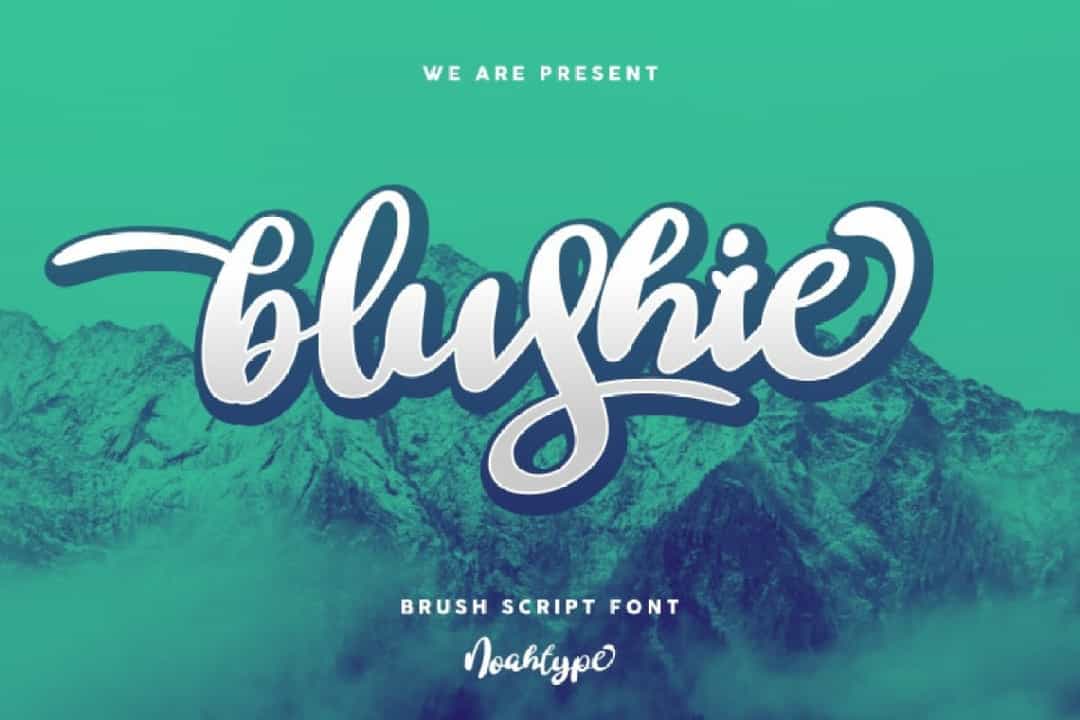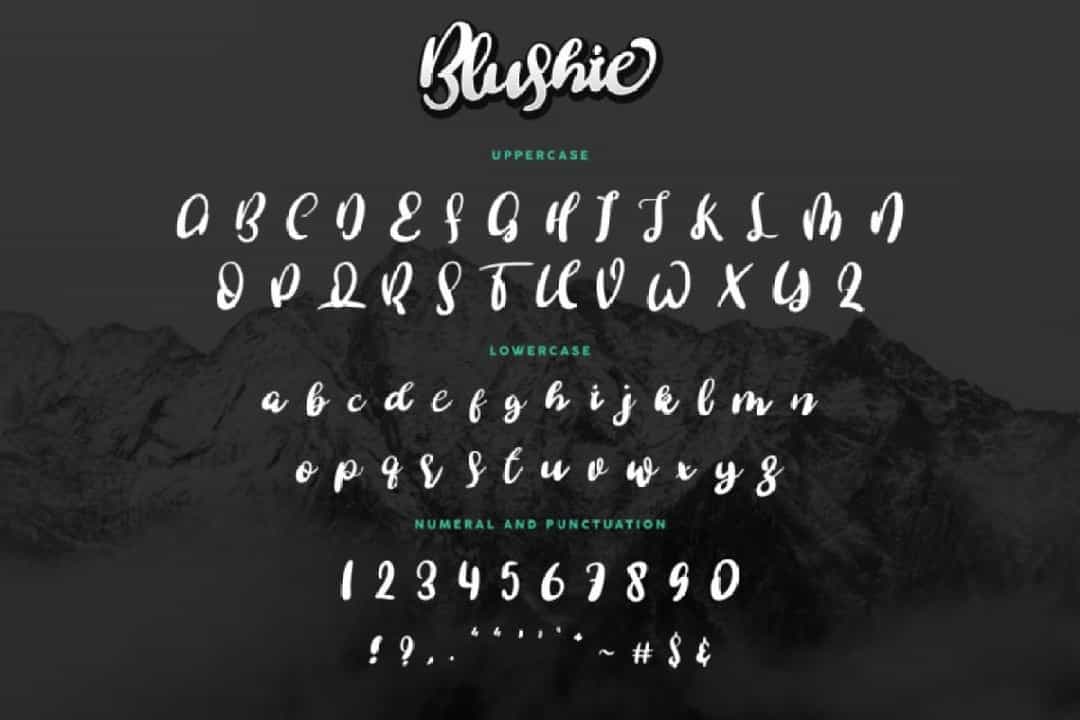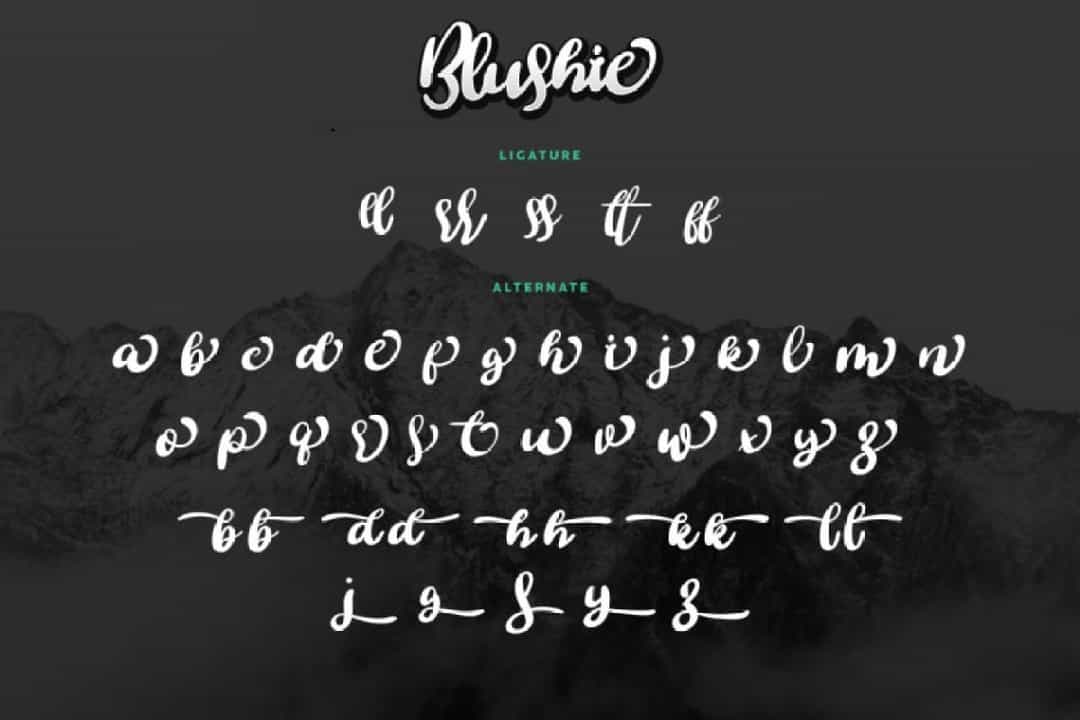
Blushie is a modern brush typeface by NoahType which is perfect to add a touch of uniqueness to any design. It has been written in a manner that as much as possible, it looks like handwritten script; so every glyph is designed to complement one another. When designing our fonts we always aim at coming up with a style that when used later can mimic handwriting and this font is ideal for motor clubs videos, sports videos, music games, apps etc.